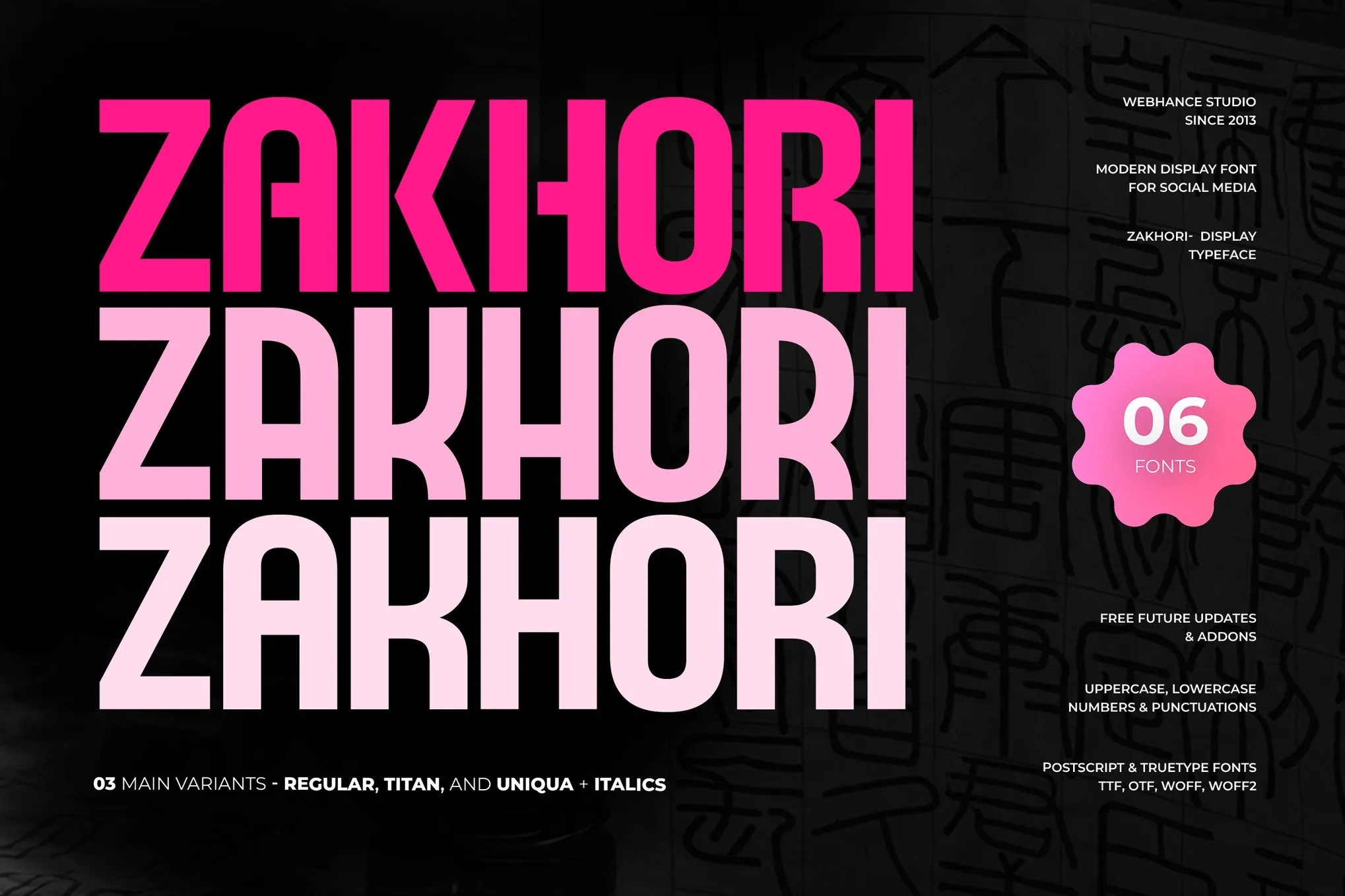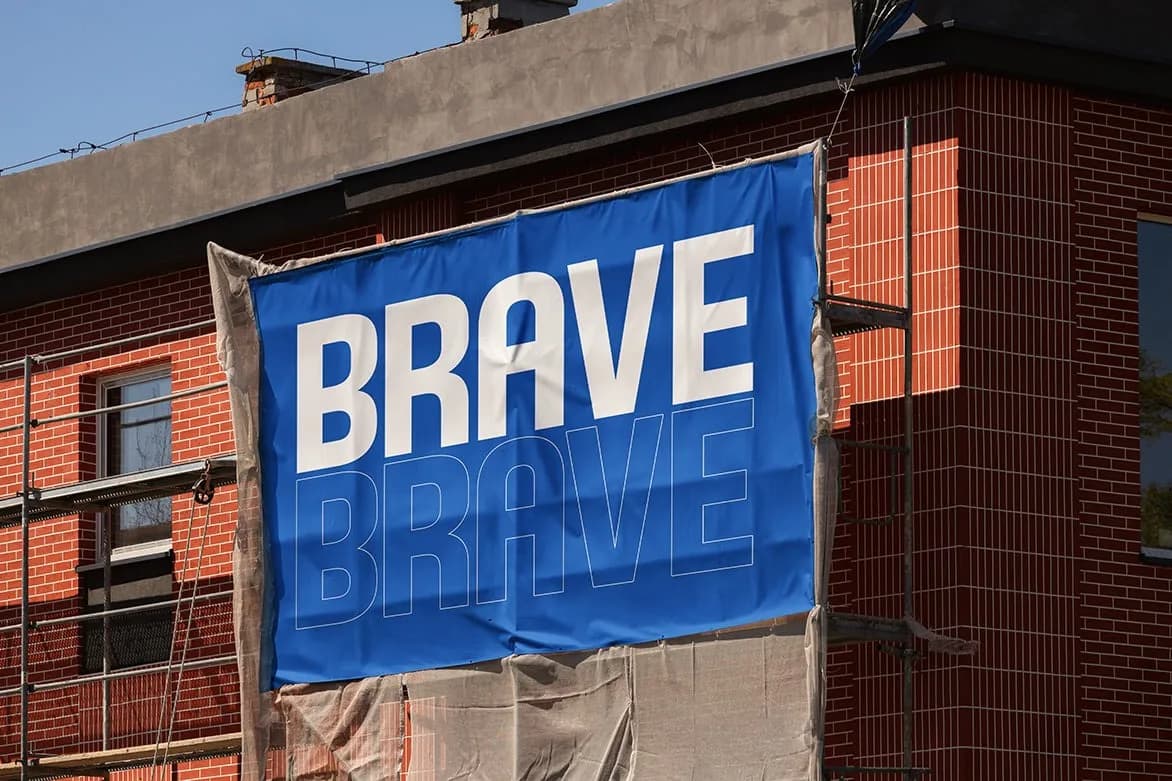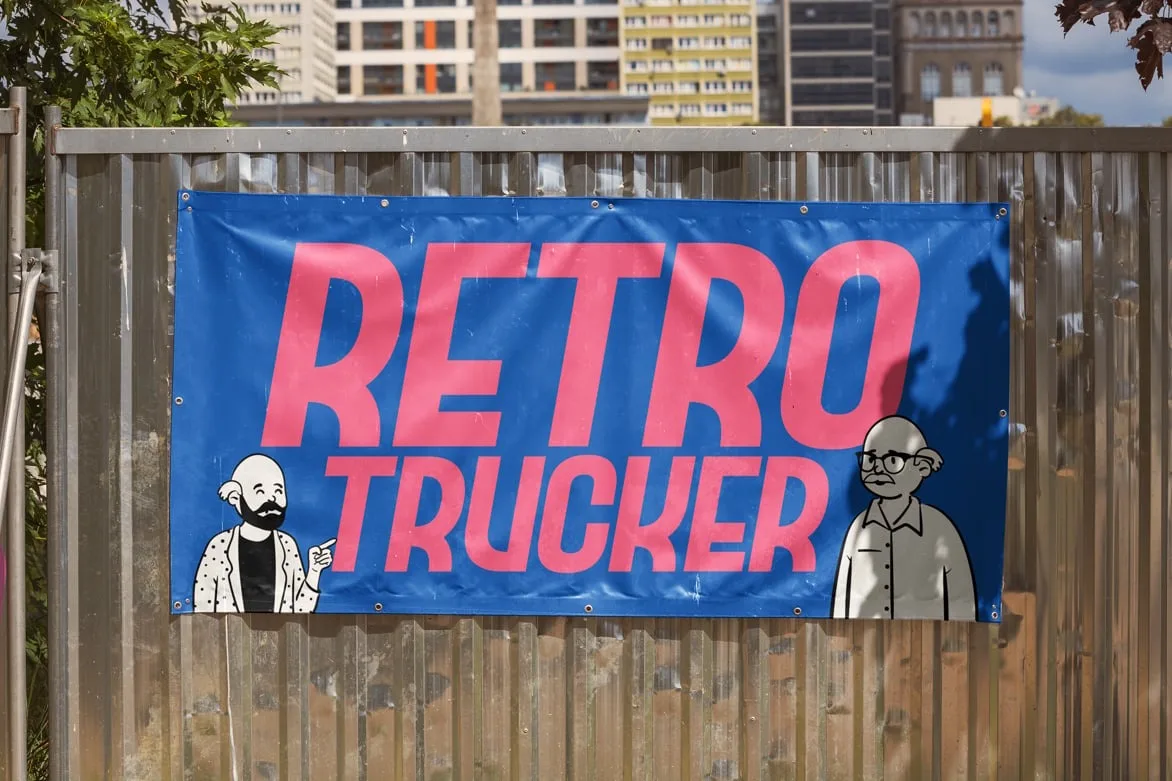
Zakhori
0Zakhori, a standout sans-serif font, embodies a modern and minimalistic approach to typography. Designed with a focus on clarity and elegance, this font features well-crafted uppercase letters that make it particularly suitable for impactful branding and promotional materials. The geometric construction and thoughtful kerning contribute to its legibility, allowing for seamless use in both web and print environments.
This versatile font excels in various applications, including social media graphics, marketing sites, and editorial layouts. Zakhori's clean lines and distinctive personality make it an excellent choice for headline fonts and logo designs, ensuring that your brand identity is communicated with confidence and style. Whether you're creating eye-catching Instagram posts or engaging TikTok content, Zakhori’s modern flair will resonate with your audience.
Additionally, Zakhori supports the Latin language, making it accessible for a wide range of users and projects. Its ability to maintain visual appeal across different media ensures that it remains a reliable choice for both digital products and print materials. Elevate your design projects with Zakhori, a font that not only enhances your visual communication but also aligns perfectly with the demands of contemporary branding.